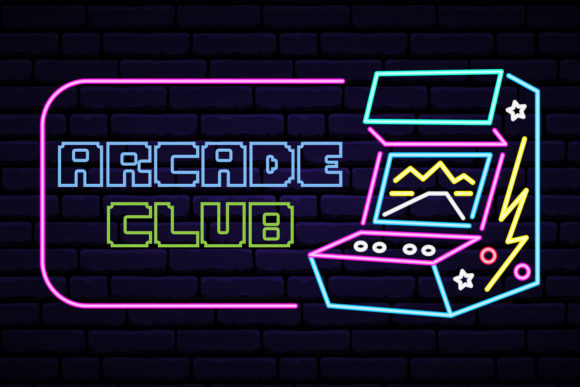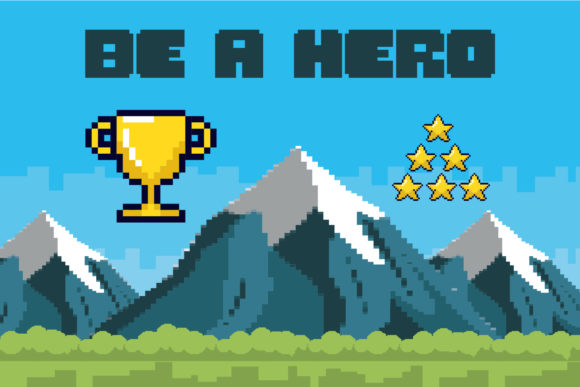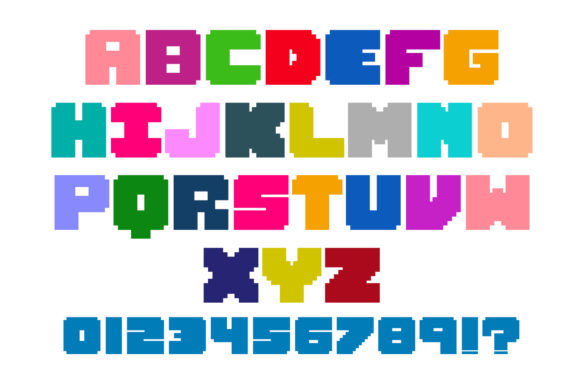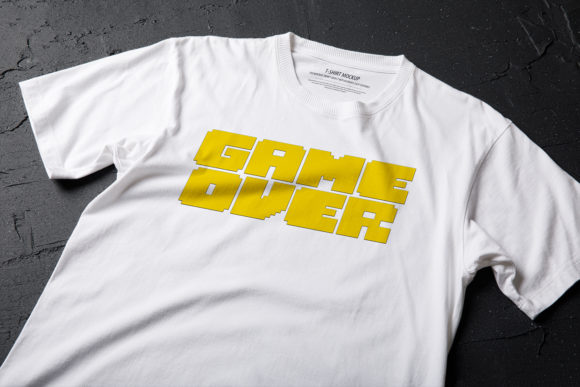
Introduction to Retro Game Font Font
Fonts play a crucial role in design, and the Retro Game Font font is a typeface that brings both character and versatility to any project. Whether you’re working on a branding project, a website, or a print design, the Retro Game Font font offers a unique style that can elevate your work.
Retro Game is a bold and chunky lettered display font.
The Retro Game Font font is more than just a typeface – it’s a design tool that helps you communicate your message with style and clarity. Its unique character set and versatile design make it suitable for a wide range of applications, from elegant invitations to bold headlines.
With its carefully crafted letterforms and balanced proportions, the Retro Game Font font ensures readability and visual appeal across all mediums.
The Retro Game Font font stands out with its unique design, exceptional readability, and versatility across various design applications.